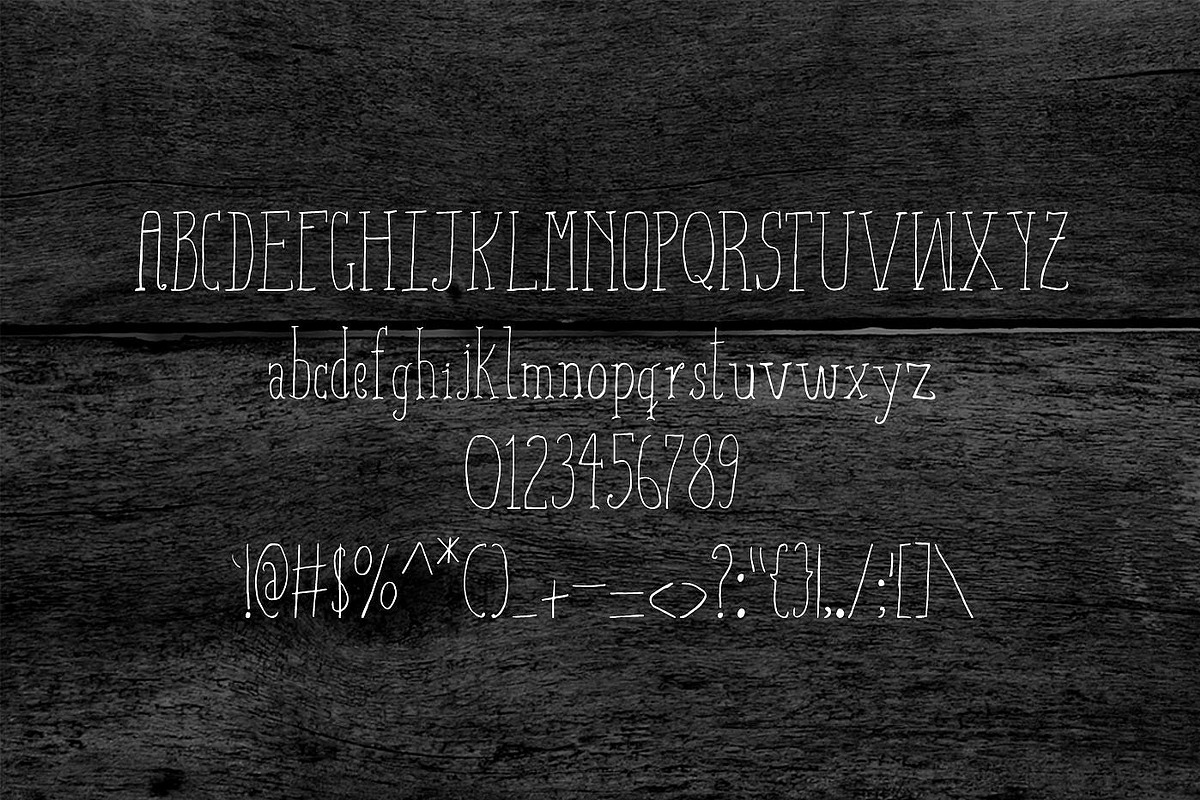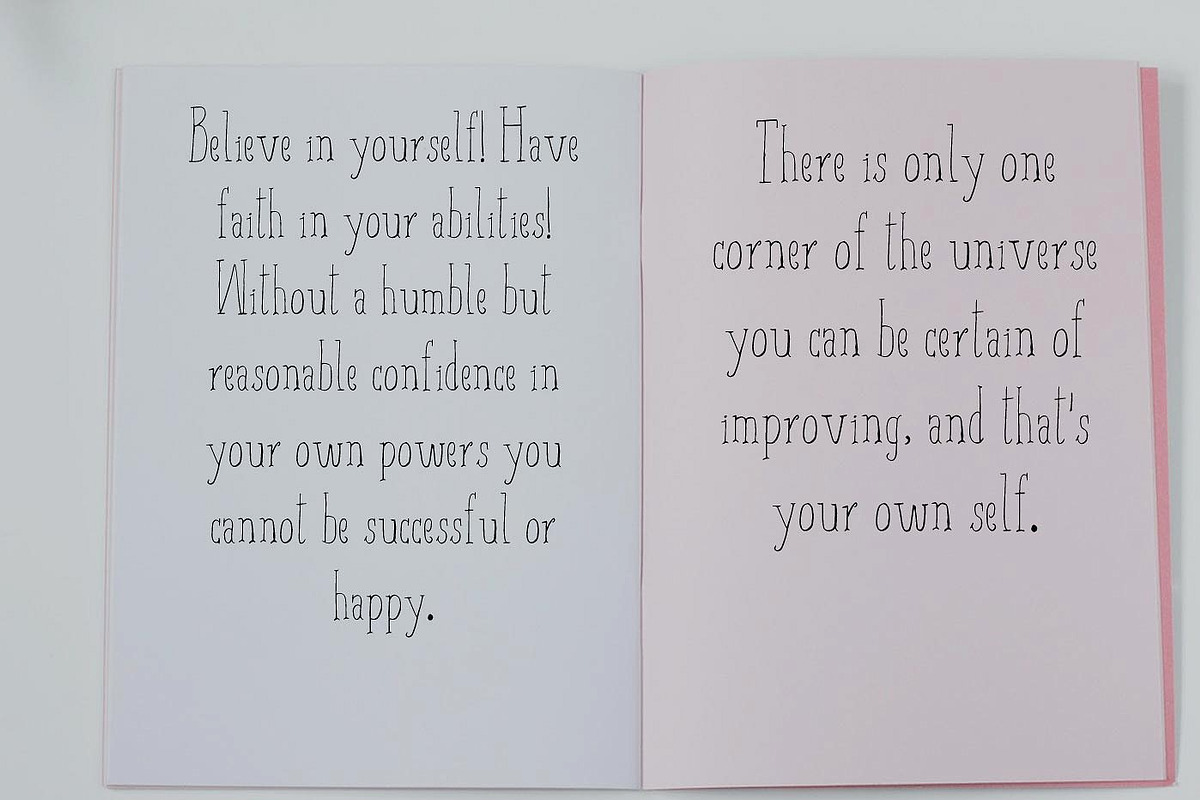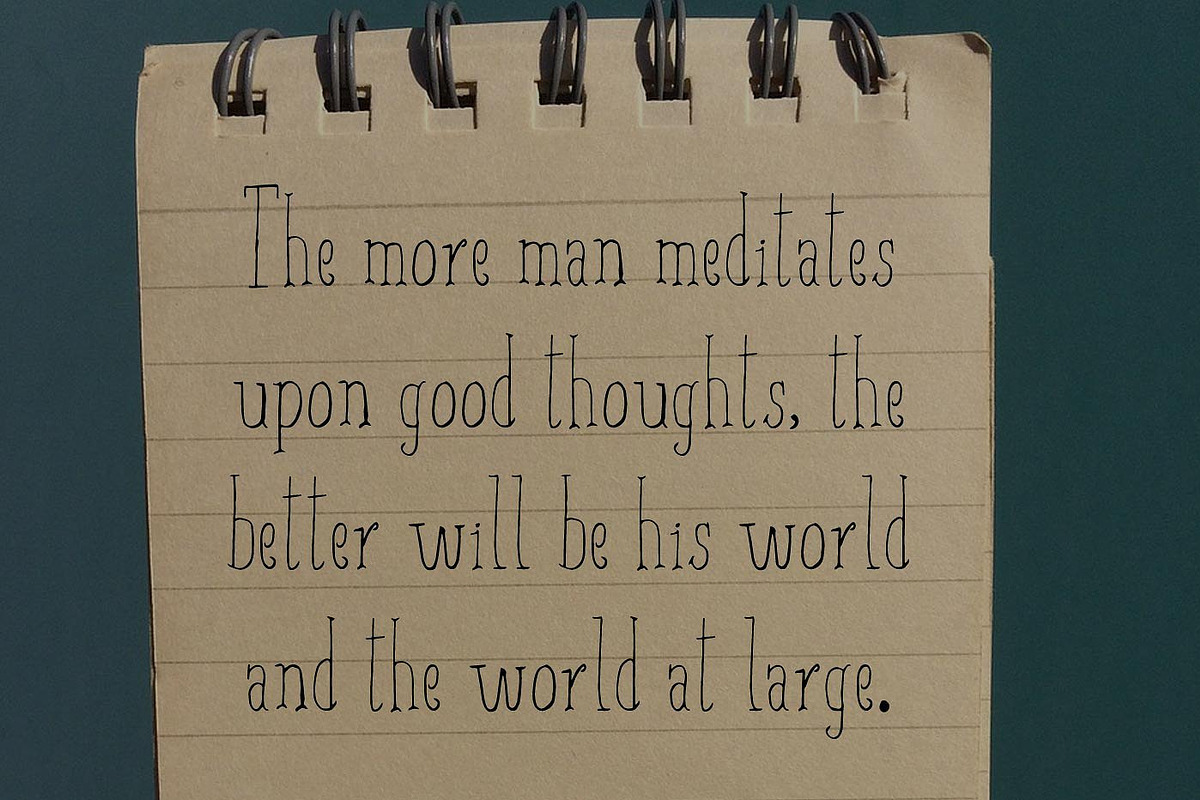
Aiza Shine Serif Regular Font
Aiza Shine Serif Regular Font by Creativetacos is a font selected for branding, posters, packaging, typography.
- To add even more fun we’ve included a special Aiza Shine Serif Ornament Extra font that has 8 ribbons.
- Capitals, Numerals and Punctuation.
Why Aiza Shine Serif Regular Font is worth a look
Aiza Shine Serif Regular Font by Creativetacos fits naturally into Branding, posters, packaging, typography.